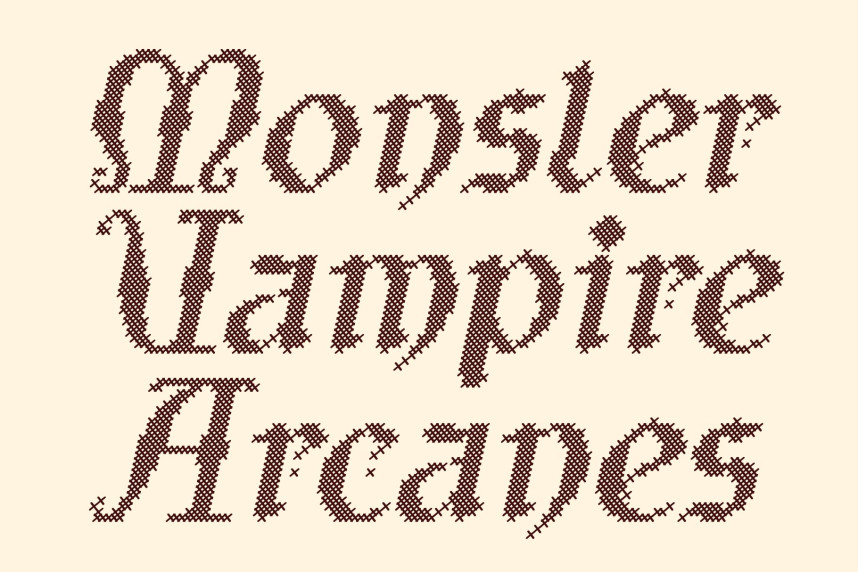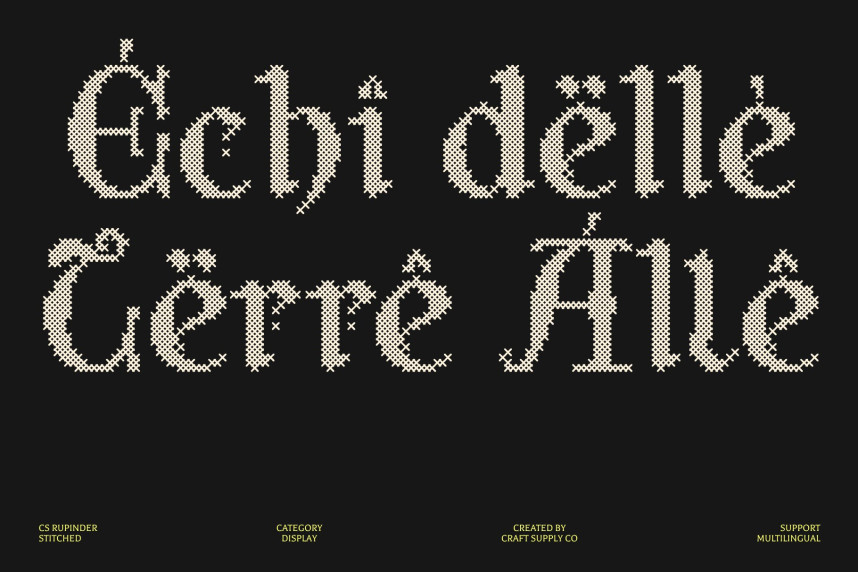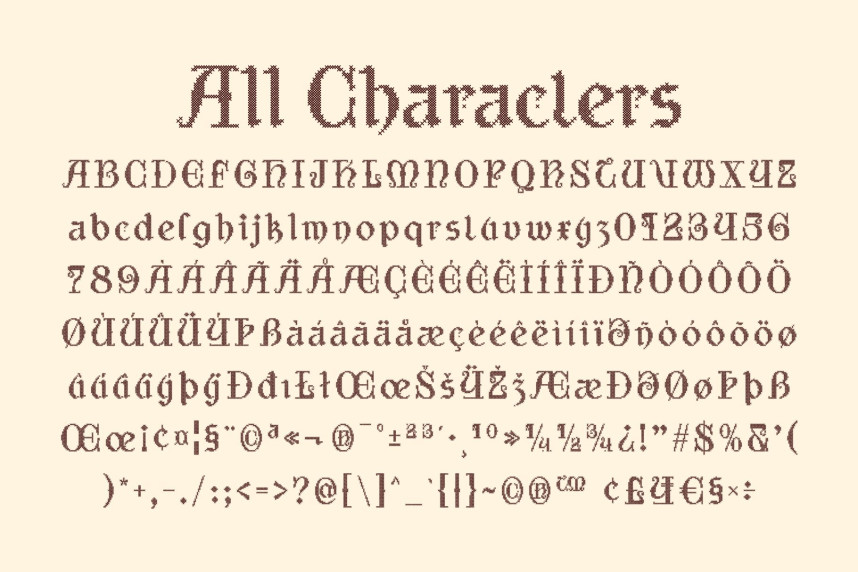
CS Rupinder Stitched Font
CS Rupinder Stitched Font – Decorative Blackletter Font: Where Gothic Drama Meets Handcrafted Warmth
Bold Gothic Form with Mysterious Presence
This is a decorative blackletter display font defined by bold, dramatic strokes and an unmistakable air of mystery. Its sharp, angular letterforms draw from classic gothic traditions, creating a strong and expressive visual identity. Each character carries a sense of depth and intensity, making the font ideal for designs that seek a powerful and timeless presence.